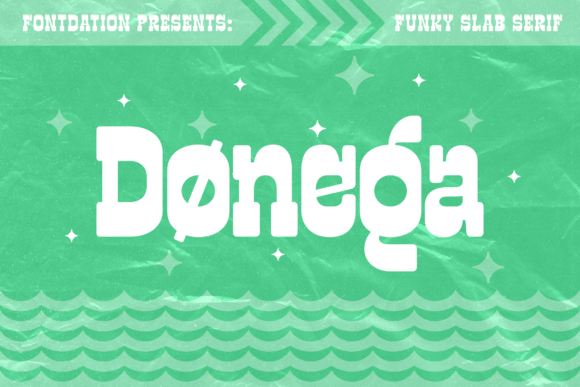
Introducing Donega Font: The Funky Slab Serif with a Strong yet Friendly Personality
In the world of typography, fonts play a crucial role in conveying messages, expressing emotions, and creating visual identities. With the ever-evolving design landscape, it’s essential to stay ahead of the curve with fresh and exciting fonts. One such addition to the typography family is the Donega Font, a funky and good-looking slab serif that exudes a strong but friendly personality.
The Birth of Donega Font
The Donega Font is the brainchild of talented designers who aimed to create a typeface that seamlessly blends style, smoothness, and attention to detail. The result is a font that is not only visually appealing but also highly versatile. Whether you’re working on a logo, branding, poster design, or even food and beverage packaging, Donega Font is sure to make a statement.
Key Features of Donega Font
- Slab Serif Design: Donega Font boasts a slab serif design that gives it a unique and edgy look. The slab serifs add a touch of ruggedness, making it perfect for designs that require a bold and adventurous feel.
- Strong yet Friendly Personality: The font’s design is carefully crafted to exude a strong personality without appearing too aggressive. This balance makes it suitable for a wide range of applications, from corporate branding to creative posters.
- Smoothness and Attention to Detail: One of the standout features of Donega Font is its smoothness. The designers have paid high attention to detail, ensuring that each letterform is meticulously crafted to provide a smooth reading experience.
- Available in Two Styles: Donega Font comes in two styles: Regular and Italic. This versatility allows designers to experiment with different looks and feels, enhancing the overall design flexibility.
Use Cases for Donega Font
The Donega Font is incredibly versatile, making it suitable for various design projects. Here are some of the best use cases for this exciting new font:
- Logo and Branding: The strong yet friendly personality of Donega Font makes it an excellent choice for logos and branding projects. It can help create a memorable and impactful brand identity.
- Poster Designs: For poster designs, Donega Font’s slab serif style and smooth lines ensure that your message stands out. It’s perfect for event posters, promotional materials, and more.
- Headlines: The bold nature of Donega Font makes it ideal for headlines. Whether you’re working on a digital article, a print magazine, or an advertisement, this font will grab attention.
- Food and Beverage Packaging: Donega Font’s friendly and approachable look makes it suitable for food and beverage packaging. It can add a touch of personality to product labels and packaging designs.
- Quote Writings: For quote writings, the clarity and readability of Donega Font ensure that your quotes are presented beautifully. It’s perfect for social media graphics, blogs, and inspirational posters.
Why Choose Donega Font?
With so many fonts available, why should you choose Donega Font for your projects? Here are a few compelling reasons:
- Unique Style: Donega Font offers a unique slab serif style that sets it apart from more traditional fonts. Its distinctive look can help your designs stand out.
- Versatility: Available in two styles (Regular and Italic), Donega Font provides flexibility for various design needs. You can use it for both headlines and body text, or experiment with different styles to create visual interest.
- User-Friendly: The smoothness and attention to detail in Donega Font ensure a pleasant reading experience. This is particularly important for digital content, where readability is key.
- High-Quality Design: Crafted with high attention to detail, Donega Font is a high-quality addition to any design project. It reflects a professional approach and can elevate the overall look of your work.
How to Use Donega Font Effectively
To make the most of Donega Font, consider the following tips:
- Pair with Complementary Fonts: While Donega Font is versatile, pairing it with complementary fonts can enhance your design. Choose fonts that contrast well with the slab serif style to create visual interest.
- Experiment with Sizes: Don’t be afraid to experiment with different sizes. Using Donega Font in various sizes can help create a hierarchy in your design, guiding the viewer’s eye through the content.
- Play with Colors: The bold nature of Donega Font allows it to work well with a variety of colors. Experiment with different color schemes to find the perfect match for your design.
- Consider the Context: Always consider the context in which your design will be used. For example, a more playful use of Donega Font might be suitable for a poster, while a more restrained approach might be better for a professional logo.
The Donega Font is a fantastic addition to the world of typography. Its funky and good-looking slab serif design, combined with a strong but friendly personality, makes it an excellent choice for various design projects. With its smoothness, attention to detail, and availability in two styles, Donega Font is sure to enhance your designs and provide a professional touch. Whether you’re working on logos, posters, headlines, or packaging, Donega Font is a versatile and high-quality option that can help you achieve your creative goals.